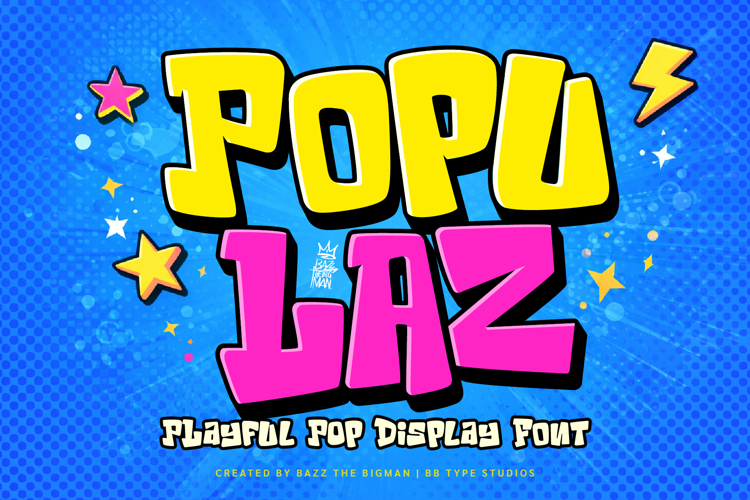
POPULAZ – Playful Pop Display Font
POPULAZ is a bold, chunky, and playful display font inspired by pop culture, graffiti, and cartoon street style. With its bubbly shapes and fun personality, this font is designed to make your text stand out and instantly grab attention.
Perfect for a wide range of creative projects such as posters, kids designs, YouTube thumbnails, branding, packaging, stickers, t-shirts, and social media graphics. Whether you're creating something fun, loud, or eye-catching, POPULAZ will make your design POP!